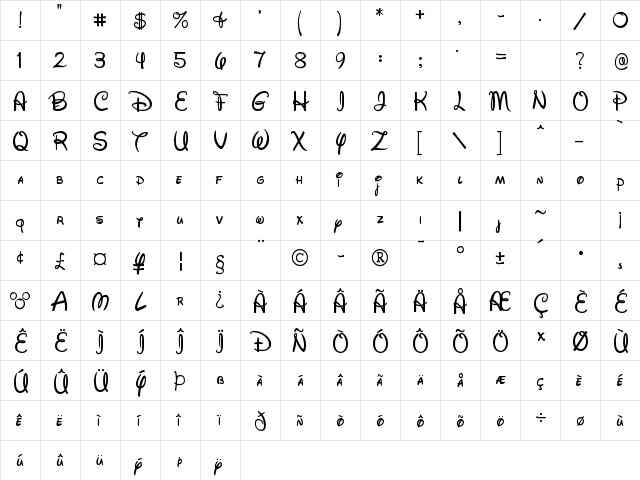
Walt Disney Script Regular
Design Context for Walt Disney Script Typeface
Walt Disney Script brings a calligraphic fluidity to the page — its connecting strokes and expressive curves give it an unmistakably human quality.
Font Pairing: Combine Walt Disney Script with a simple geometric sans for maximum contrast — the tension between flowing curves and clean structure is a classic typographic pairing.
Pro Tip: Pair Walt Disney Script with a clean sans-serif for supporting text. The contrast between fluid script and geometric structure creates an elegant typographic hierarchy.